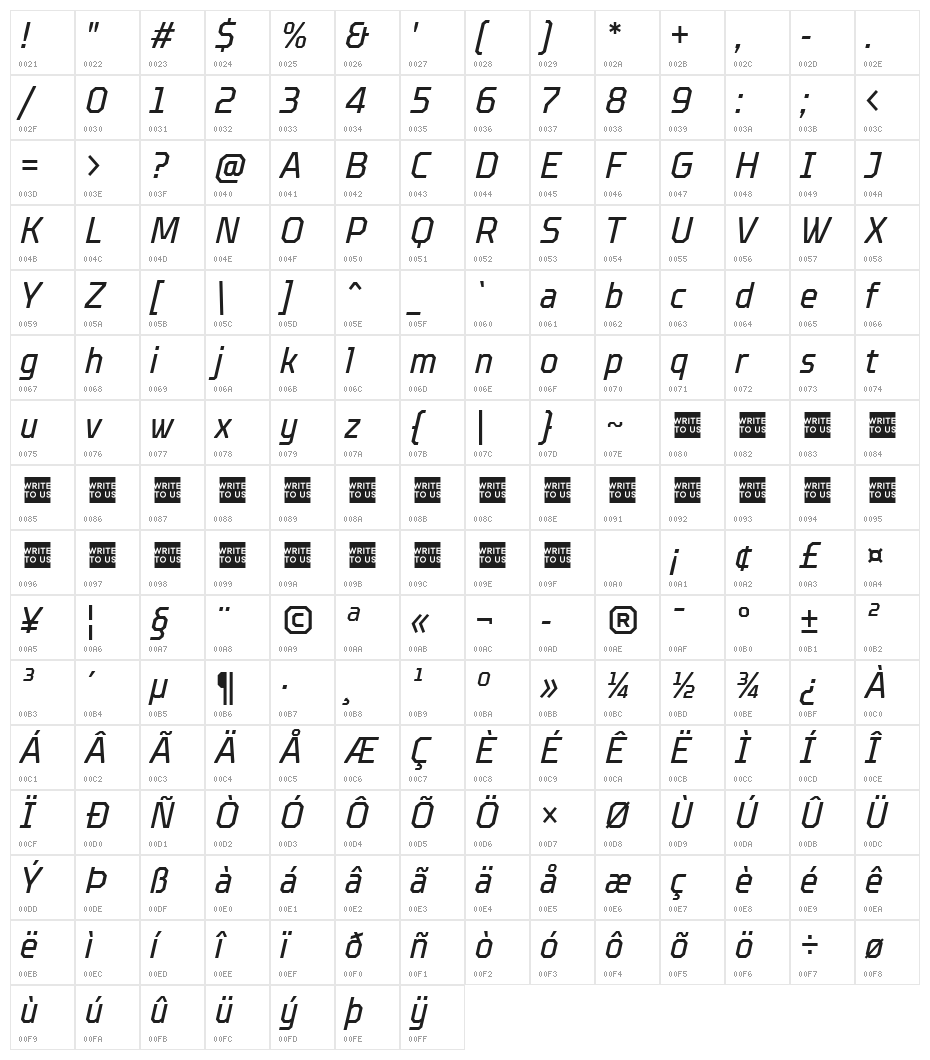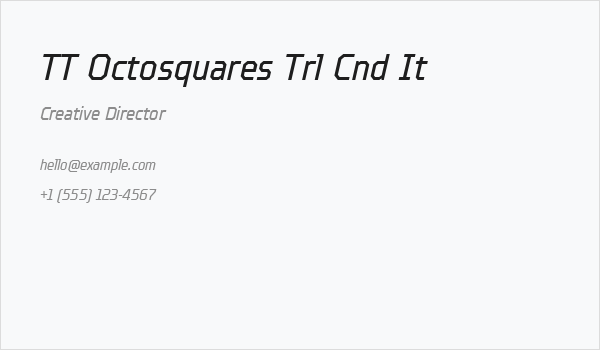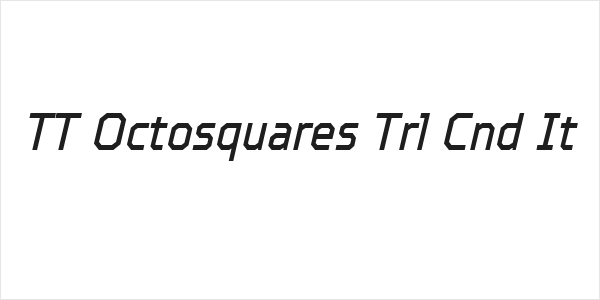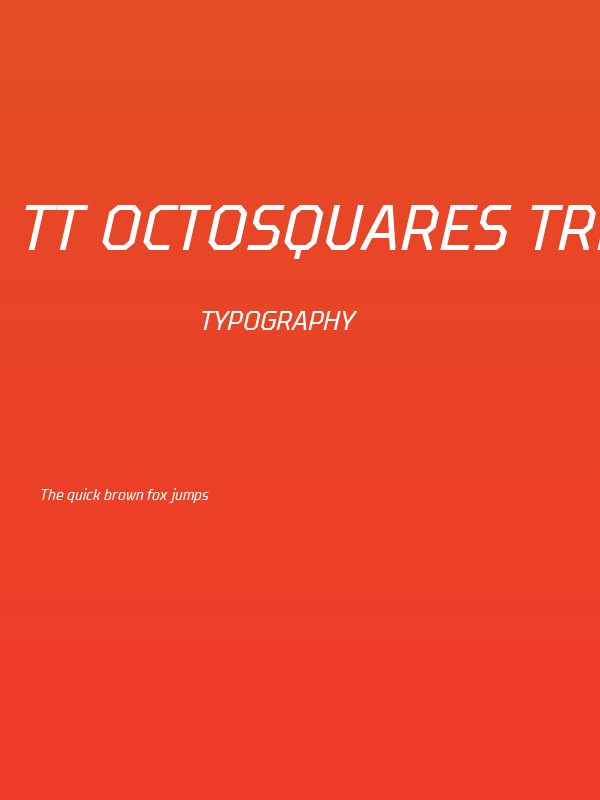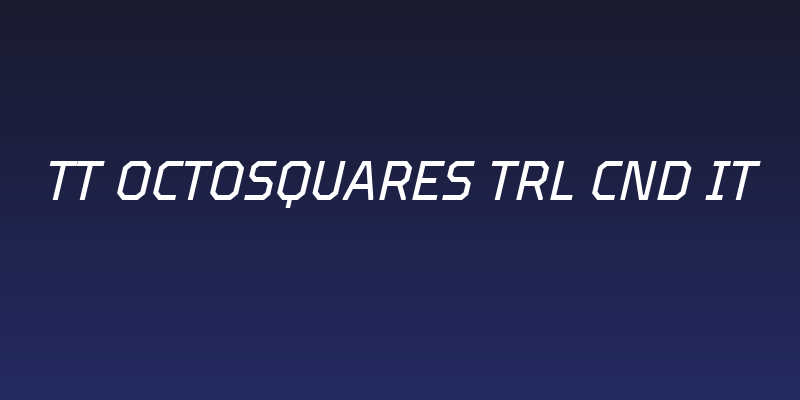
TT Octosquares Trl Cnd It Font
TT Octosquares Trl Cnd It Description
This font features a modern and geometric design with a distinct italic slant, giving it a dynamic and forward-moving appearance. The characters are constructed with sharp angles and clean lines, creating a futuristic and technical feel. The uppercase and lowercase letters maintain a consistent style, with the lowercase letters slightly more rounded. The numerals are bold and easily readable, while the special characters complement the overall aesthetic. This font is suitable for projects that require a contemporary and edgy look.
| Use Case | Headlines, Logos, Digital Interfaces |
| Proposed Projects | Ideal for tech branding, modern advertising, digital interfaces, and futuristic designs. |